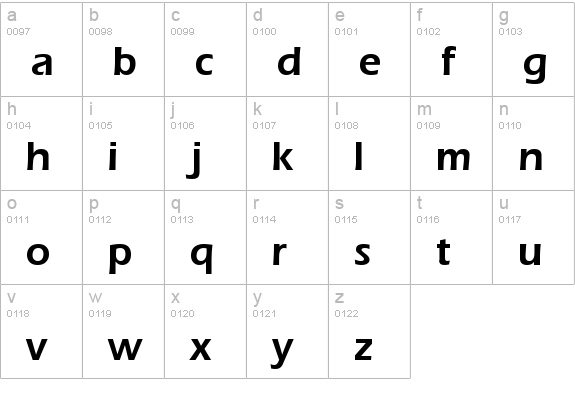
TR ErieBlack Plain font is a sleek and modern typeface that exudes sophistication and elegance. With its clean lines and bold appearance, this font is perfect for making a statement in any design project. The strong, confident presence of TR ErieBlack Plain font makes it ideal for headlines, titles, and other prominent text elements. Best of all, this stylish font is available for free download at FontsMarket.com. Whether you're working on a professional project or simply looking to add some flair to your personal creations, TR ErieBlack Plain font is a versatile choice that will help you achieve the desired look and feel. Don't miss out on the opportunity to enhance your designs with this eye-catching typeface – download TR ErieBlack Plain font today and take your projects to the next level!